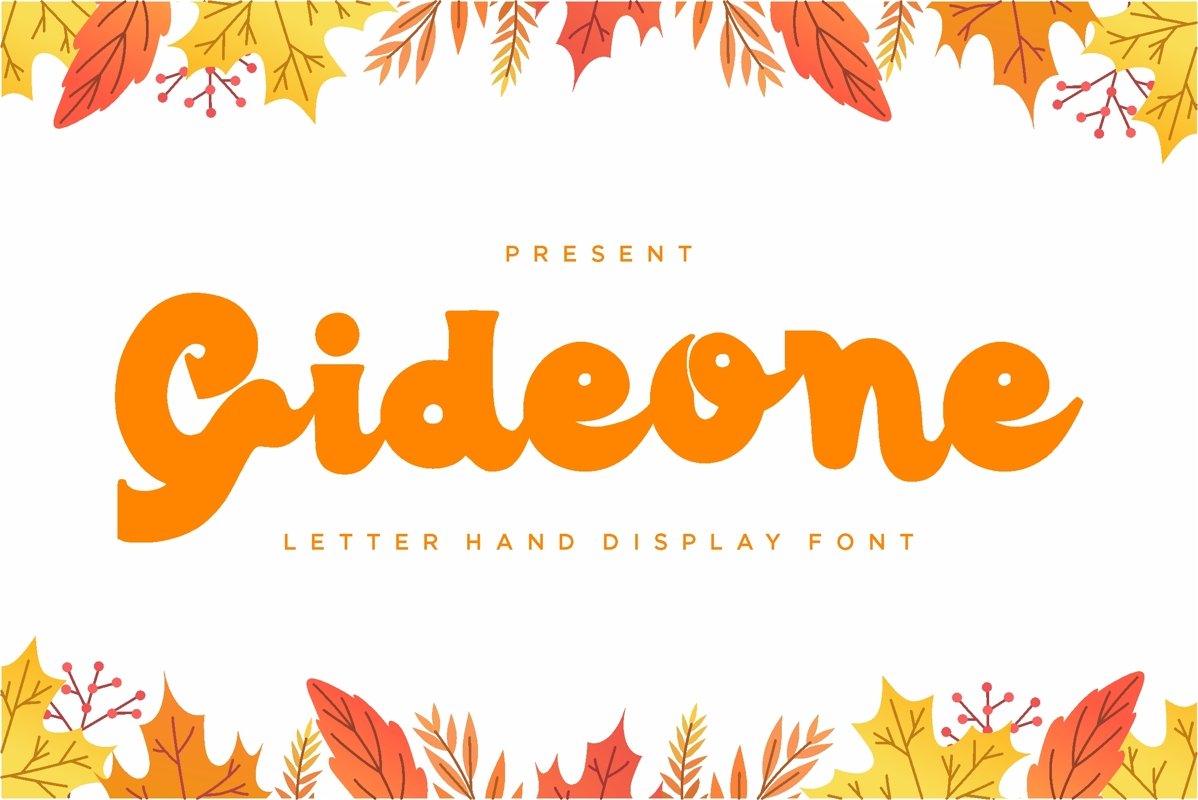
Gideone is letter hand display come with powerful themes. We wanted to create the most unique character. It matches applies in some designs such as the logotype, brand, packaging, quotes, cute poster, kids shirt, cover book, birthday invitation and more custom design. The features uppercase, lowercase, numeral, punctuation & symbol, multilingual support.